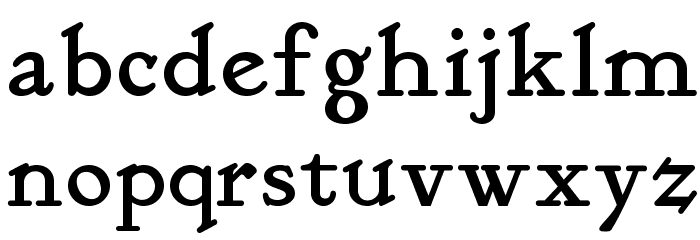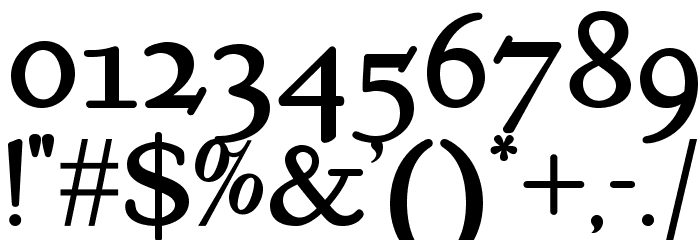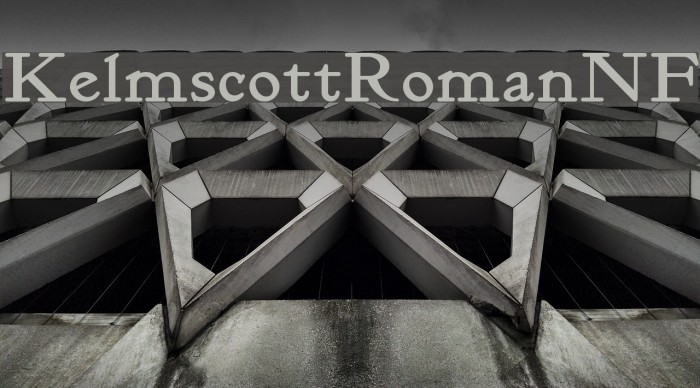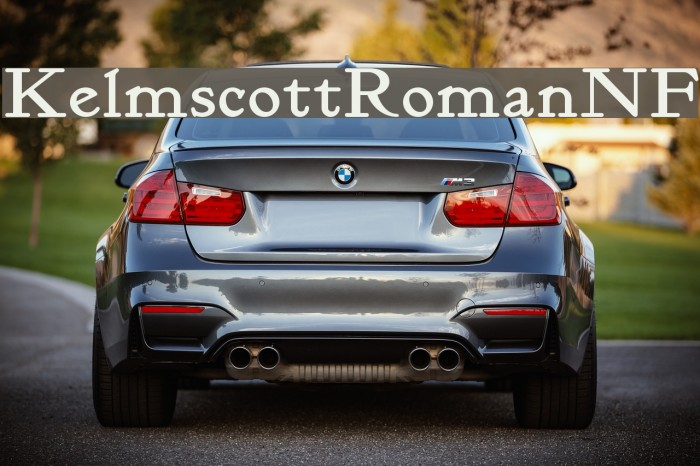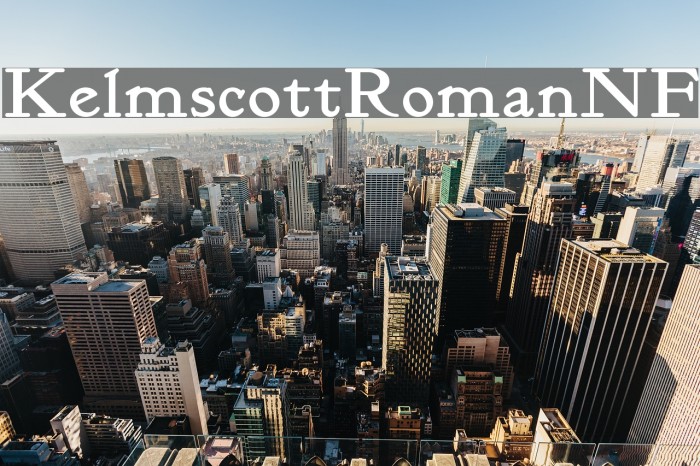
KelmscottRomanNF Font
This font features a classic and elegant serif style, reminiscent of traditional book typefaces. The characters are well-defined with a moderate contrast between thick and thin strokes, giving it a sophisticated and timeless appearance. The serifs are pronounced, adding to the font's readability and charm. The uppercase letters are bold and commanding, while the lowercase letters maintain a consistent and harmonious flow. Numbers and special characters are designed with the same attention to detail, ensuring uniformity across all elements. This font is ideal for projects that require a touch of elegance and historical flair.
A classic serif font with elegant, well-defined characters and moderate contrast.
- Overall Style: Classic